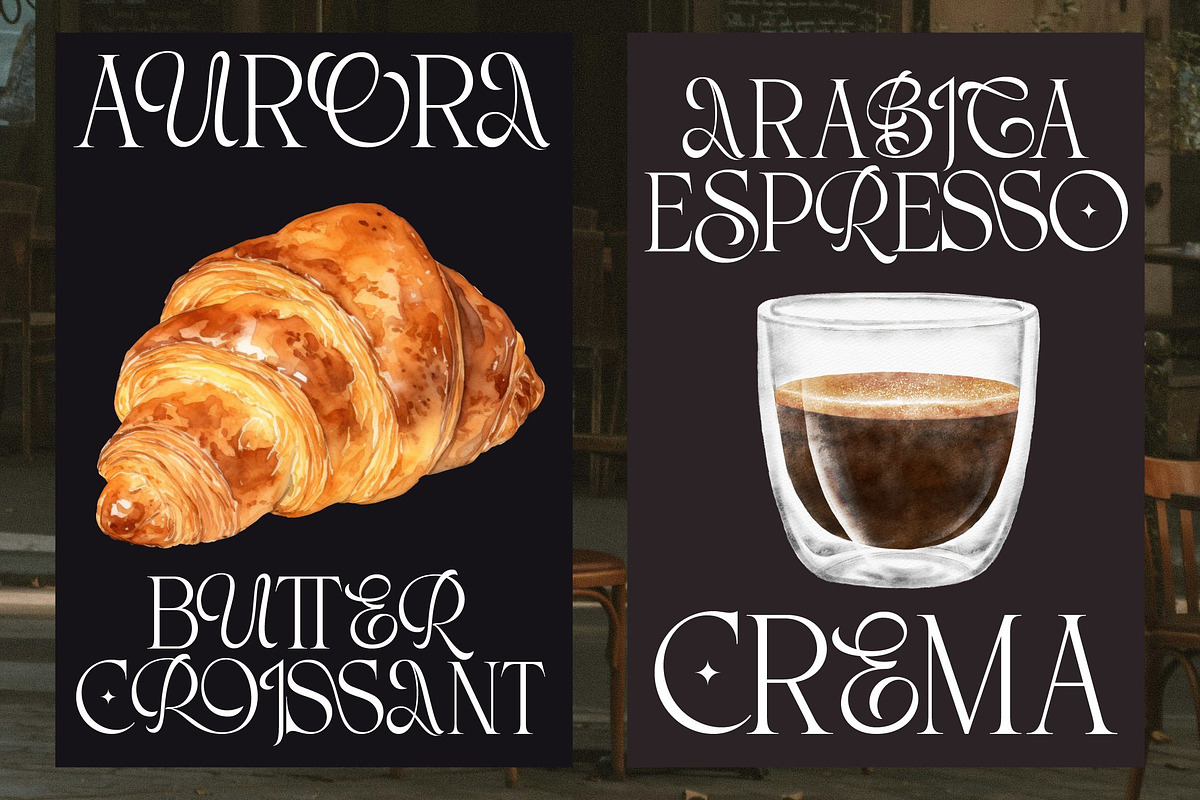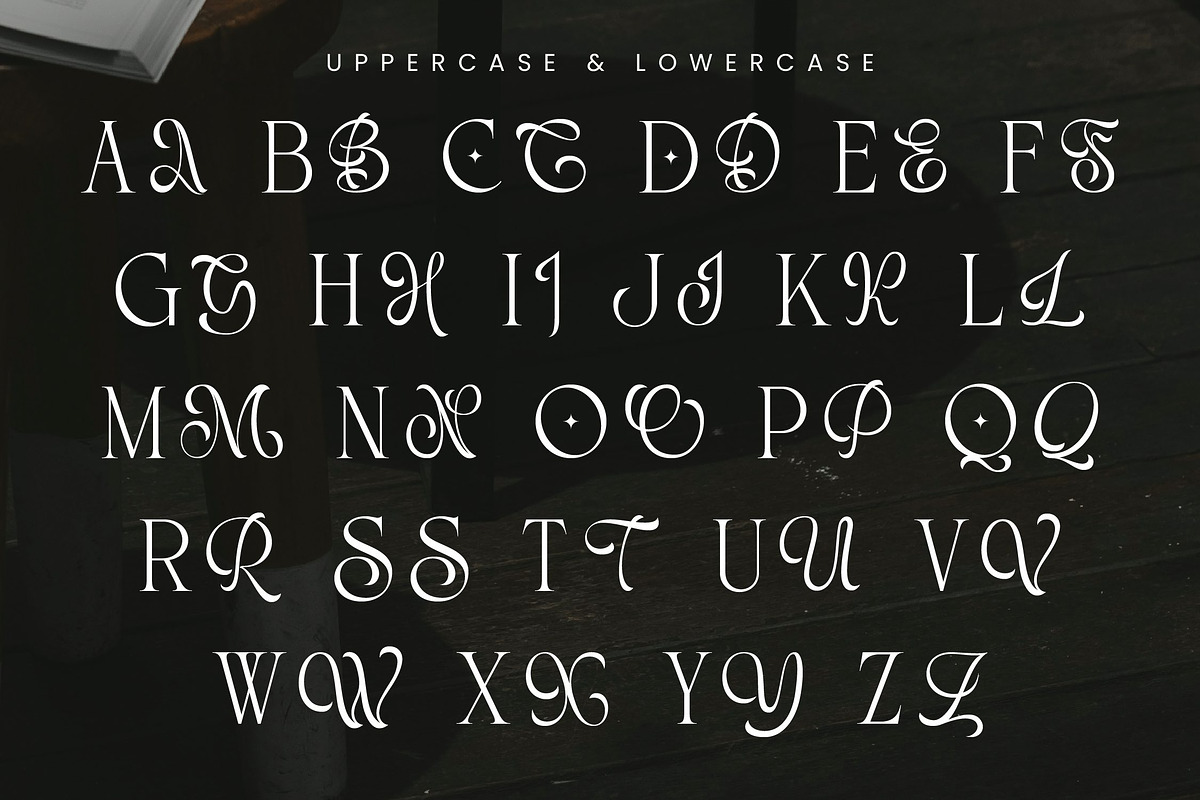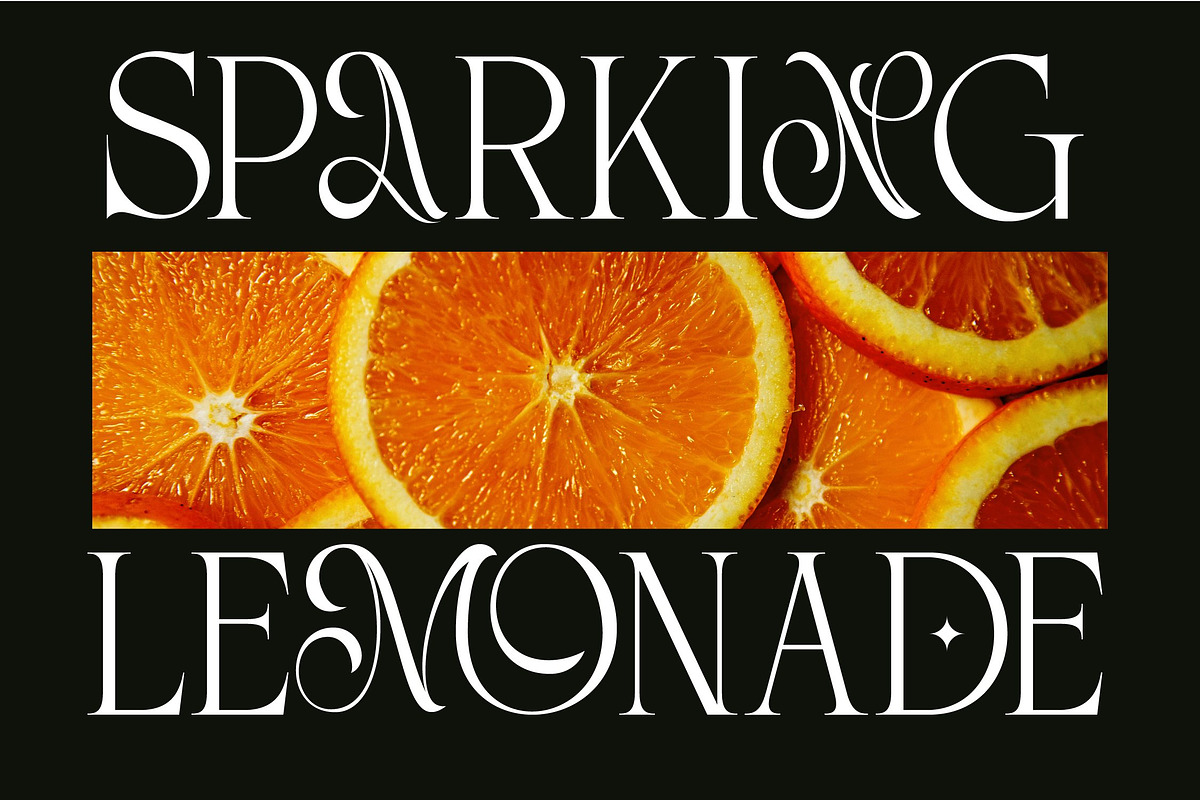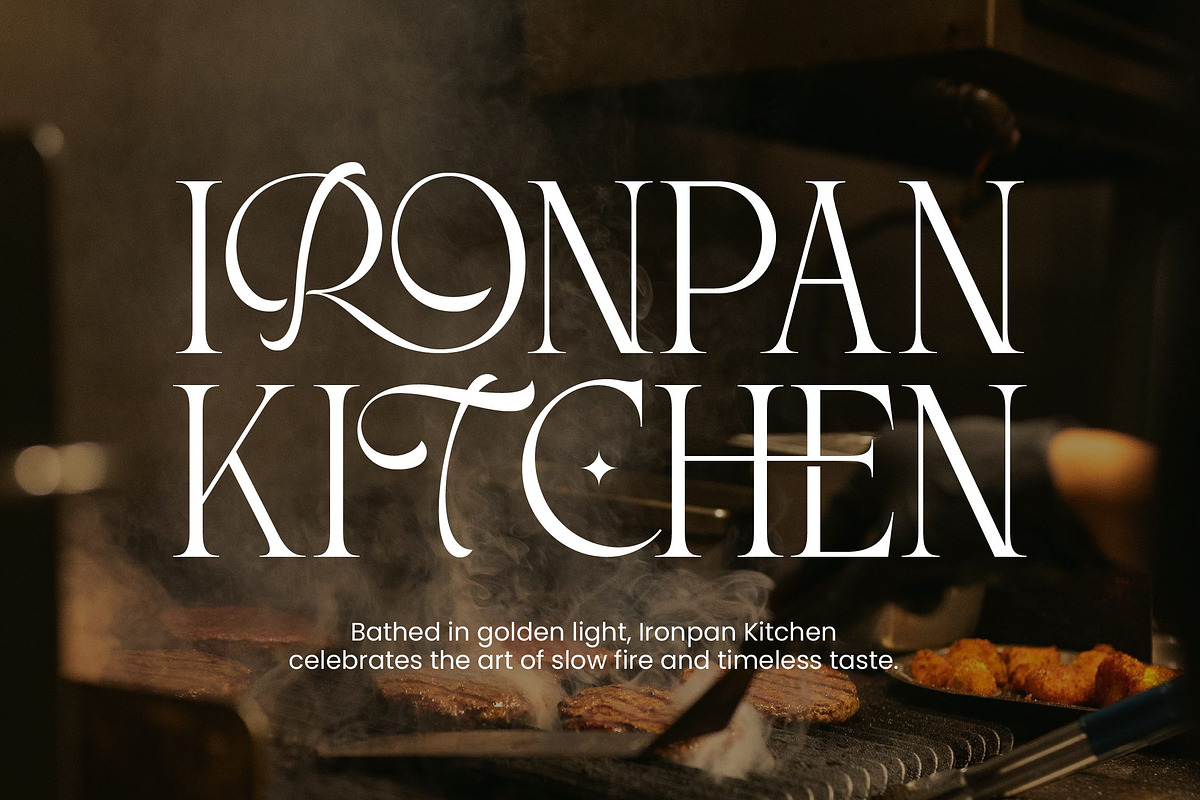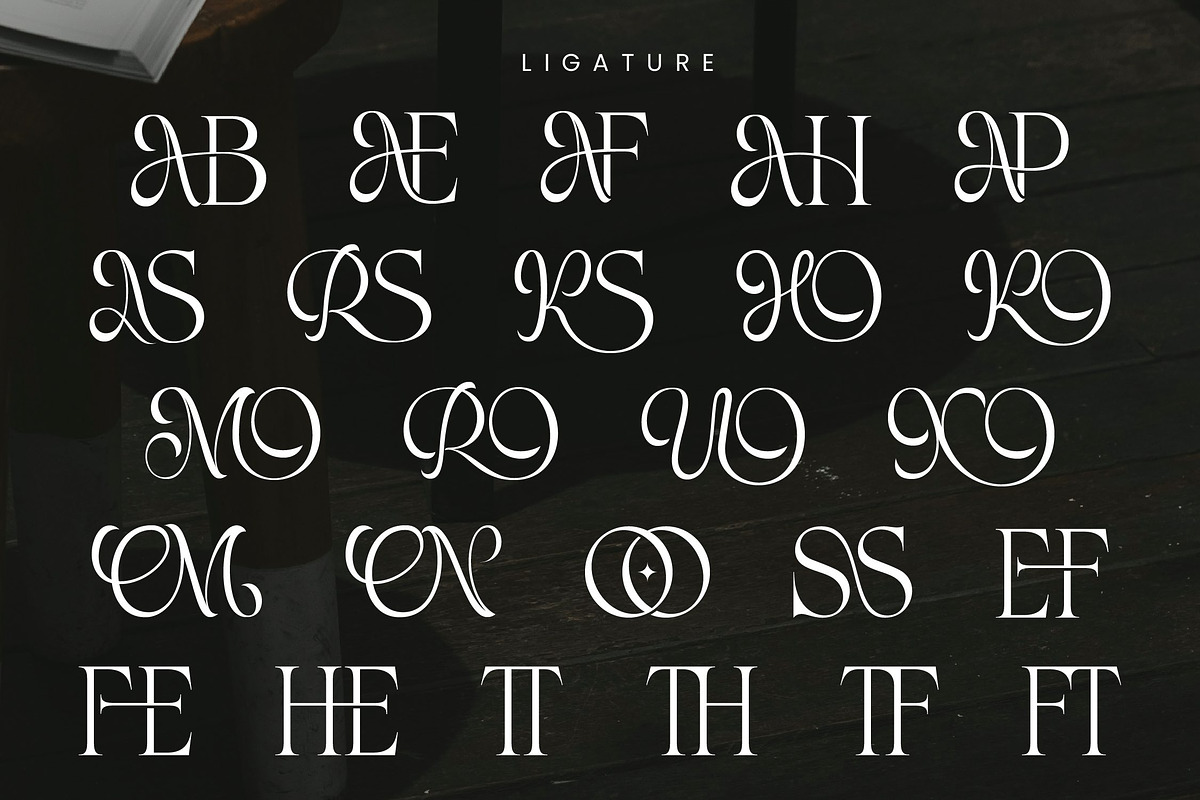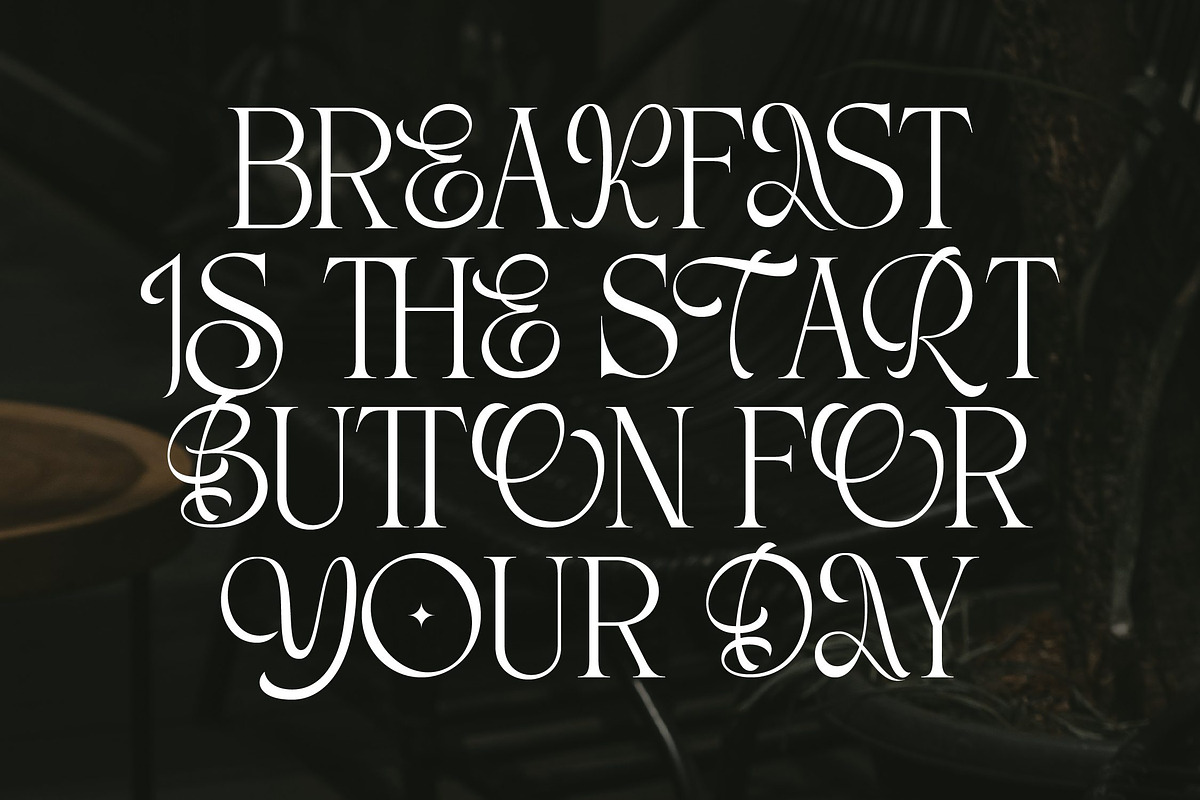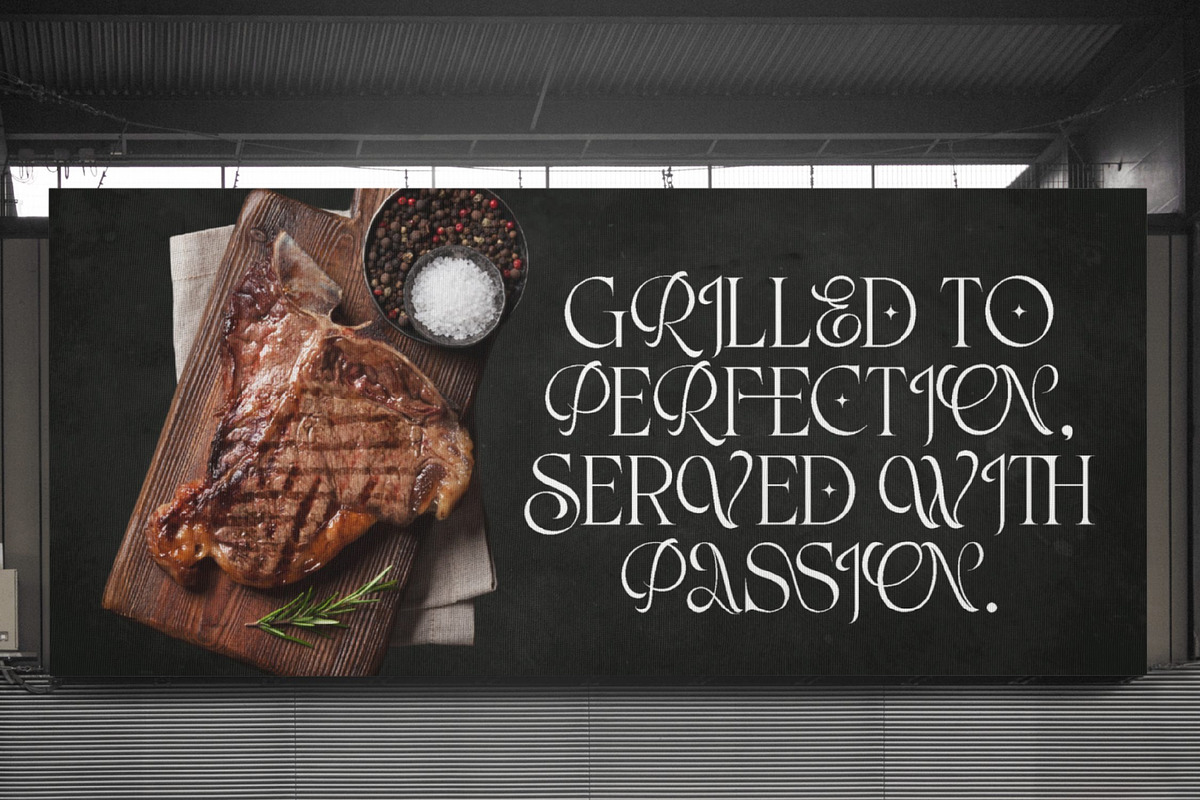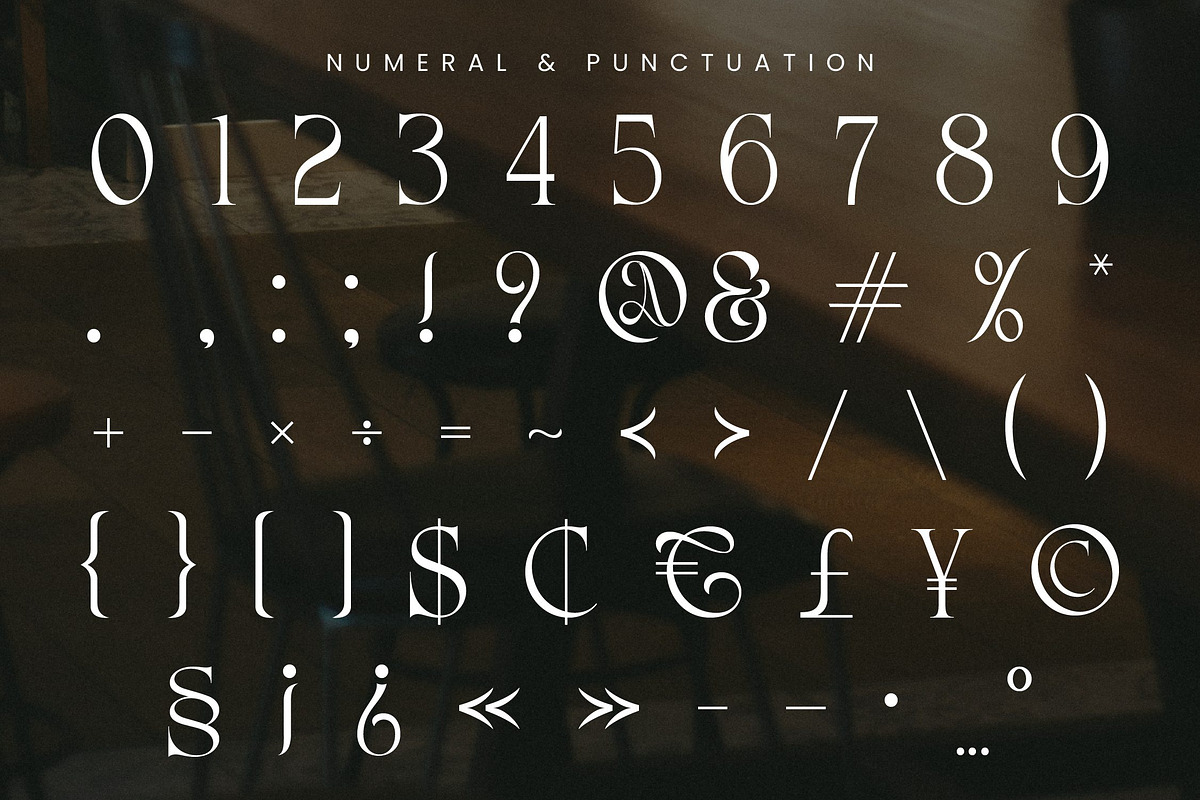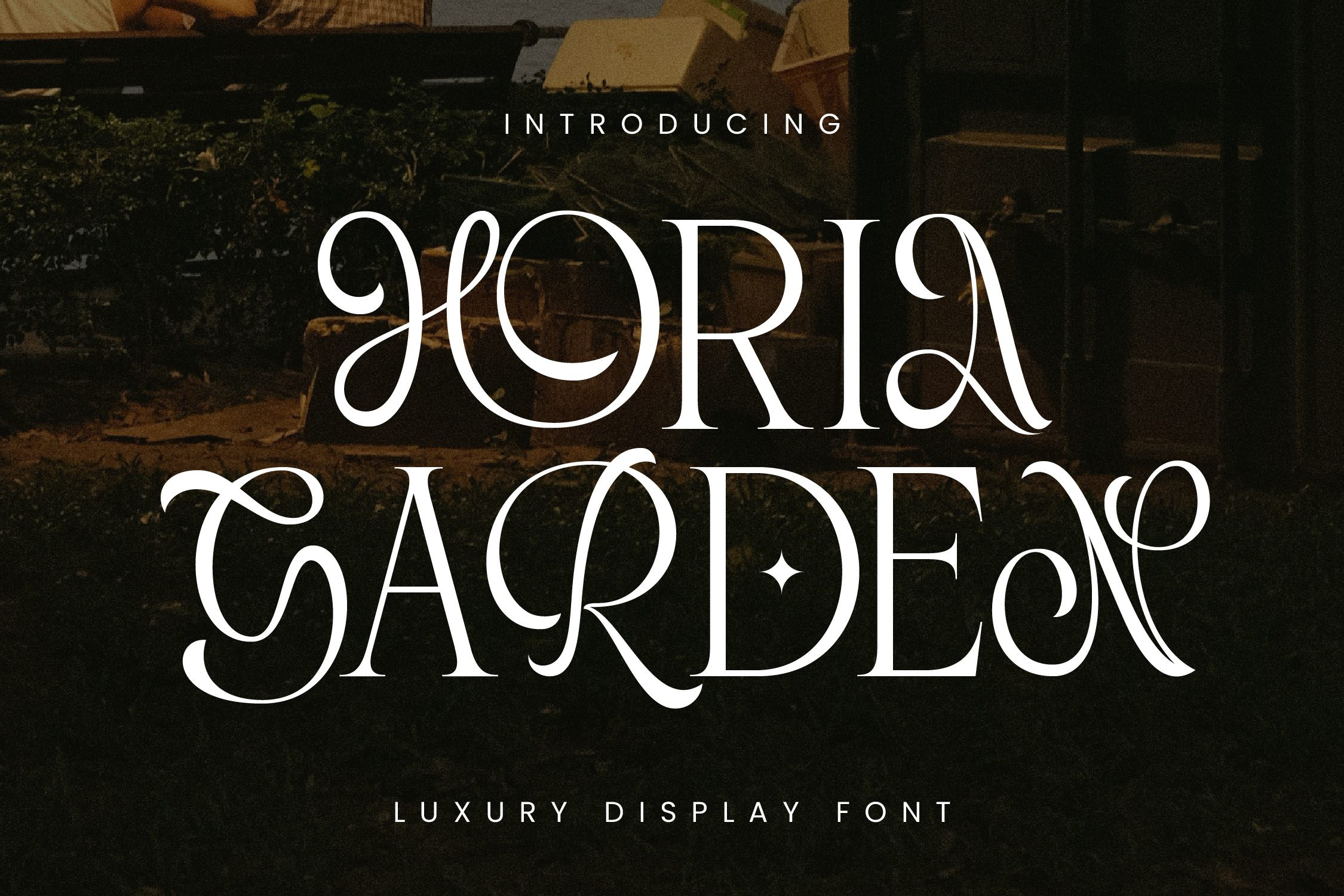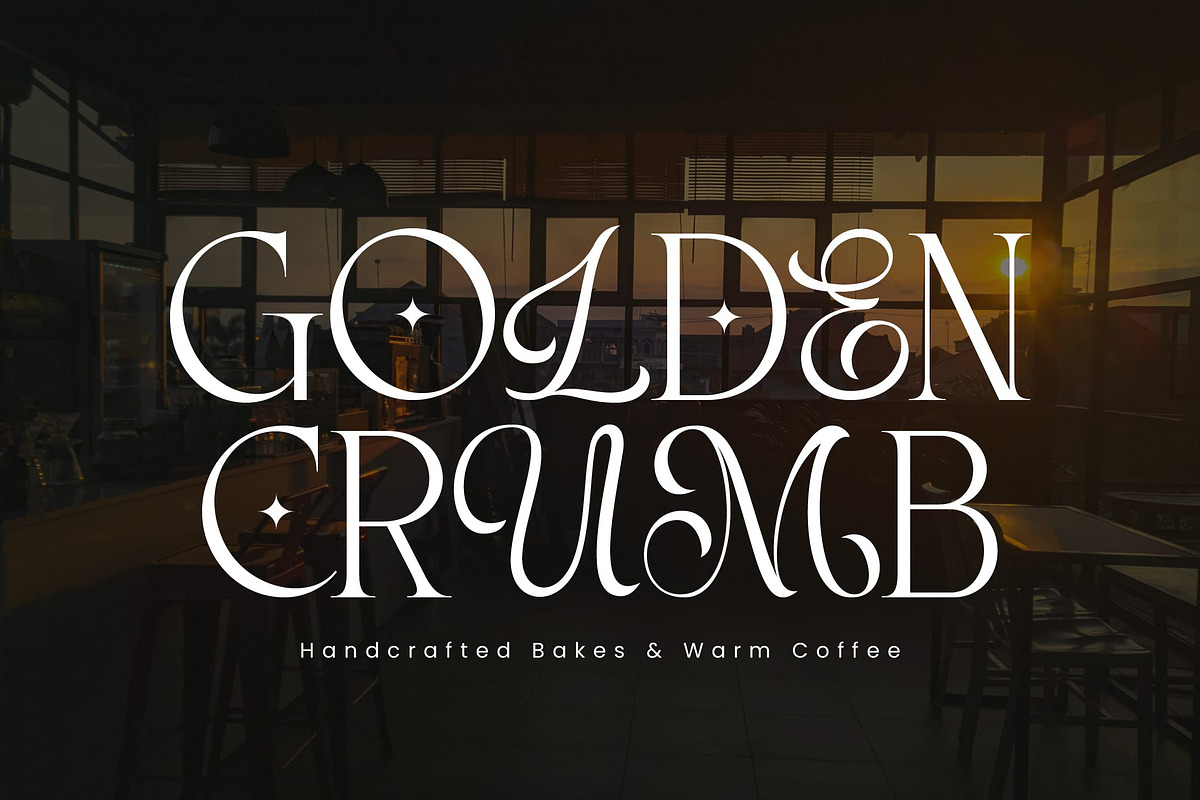
Horia Garden - Luxury Food Fonts
Horia Garden is a luxury serif display font designed to bring a sense of refined elegance and artistic charm to the world of food and lifestyle branding. Each letterform carries graceful curves and classic details, creating a perfect balance between sophistication and warmth — ideal for premium café logos, fine dining restaurants, artisan bakeries, and coffee packaging.
Crafted with attention to detail and delicate flourish shapes, Horia Garden evokes a feeling of refinement, indulgence, and timeless style. It’s more than just typography — it’s an atmosphere of taste, light, and golden luxury.
- Café, restaurant, and kitchen branding
- Bakery, dessert, and coffee product packaging
- Menus, posters, and editorial designs
- Elegant quotes and lifestyle content
- Classic serif structure with modern ornamental curves
- Luxurious and versatile for food & beverage branding
- Pairs beautifully with warm tones, golden light, and rustic-modern photography
Horia Garden adds a touch of visual flavor — where design meets taste in perfect harmony.